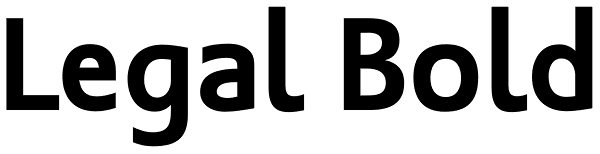
Legal
The Legal typeface family grew out a sans serif project that Hellmut G. Bomm began in the 1970s (his HGB Grotesk). This refined, industrial type family is well suited for short amounts of text, headlines, corporate identity and logo design. In small...